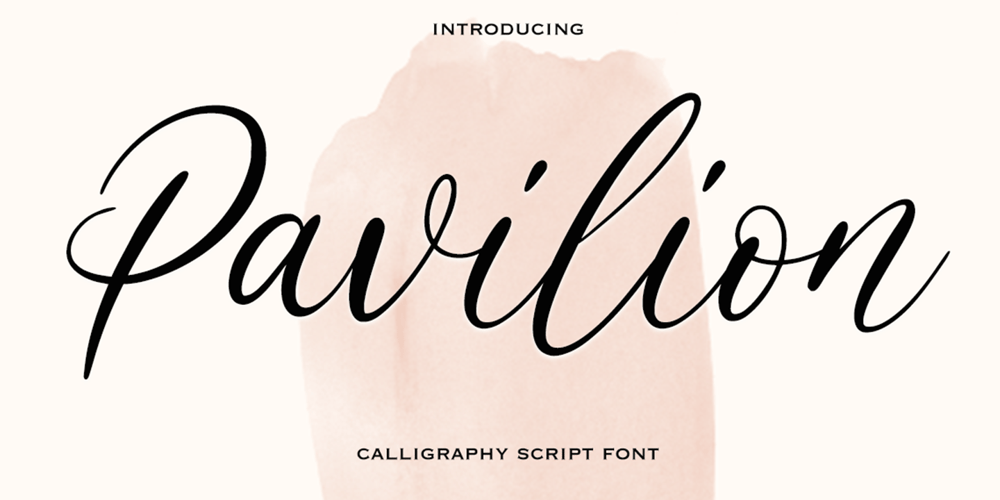
Pavilion Font Family was designed by Muhammad Zaini and published by Cocodesign. Pavilion contains 1 styles and family package options. Pavilion Script is a modern calligraphy design, including Regular. This font is casual and beautiful with swash. Can be used for various purposes. such as logos, product packaging, wedding invitations, branding, headlines, signage, labels, signatures, book covers, posters, quotes, and more.